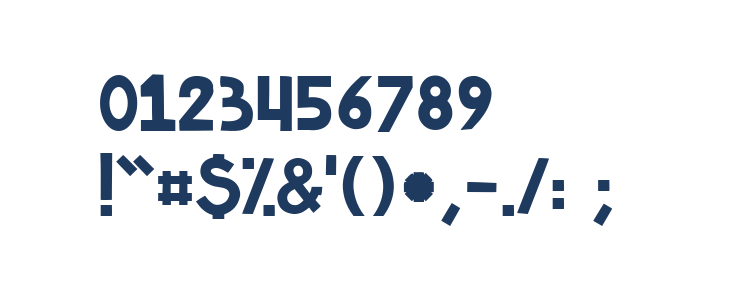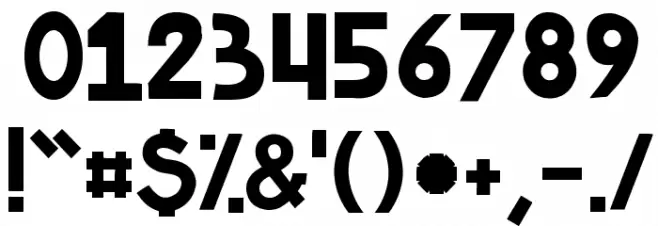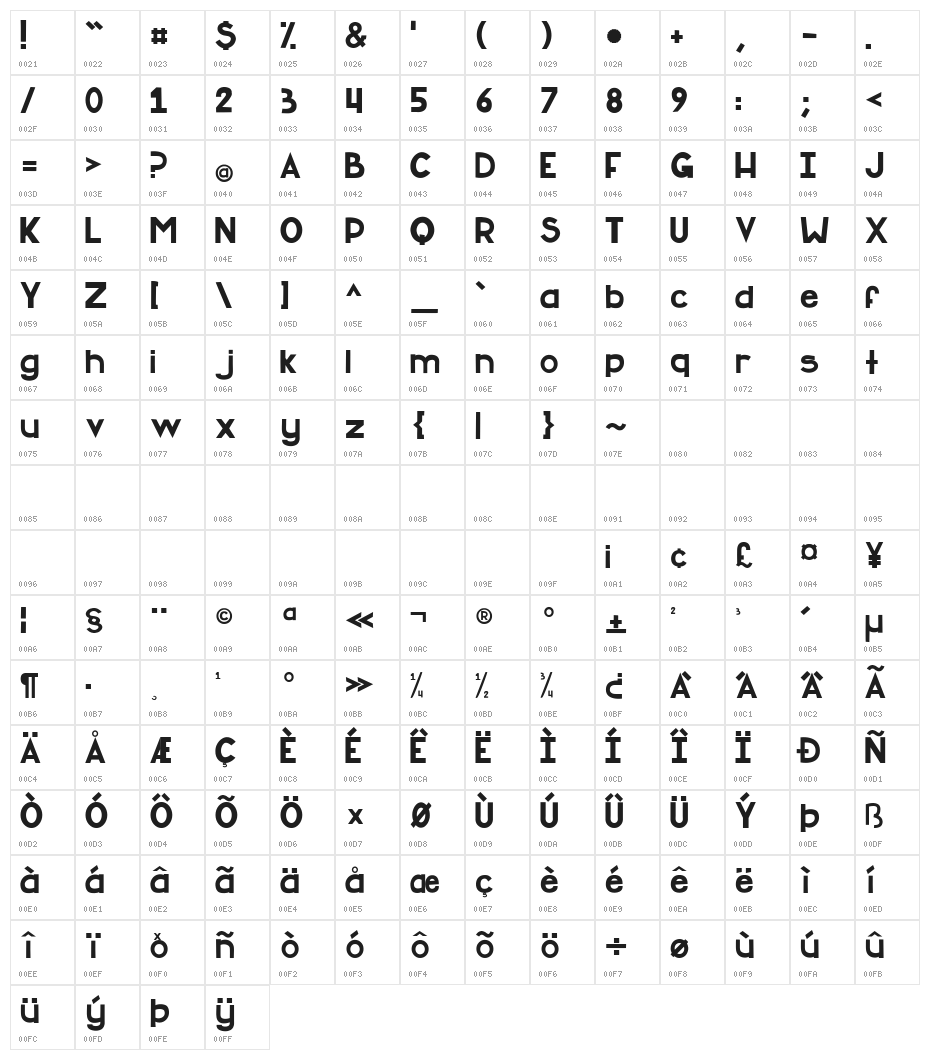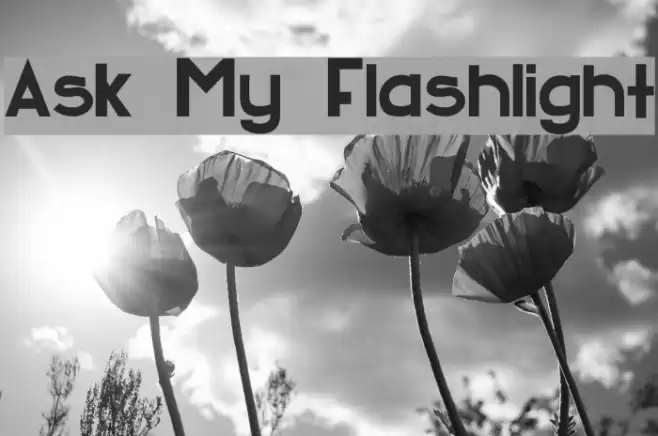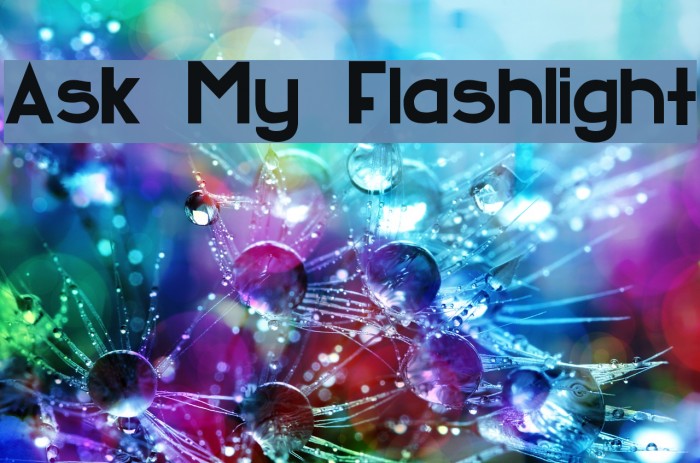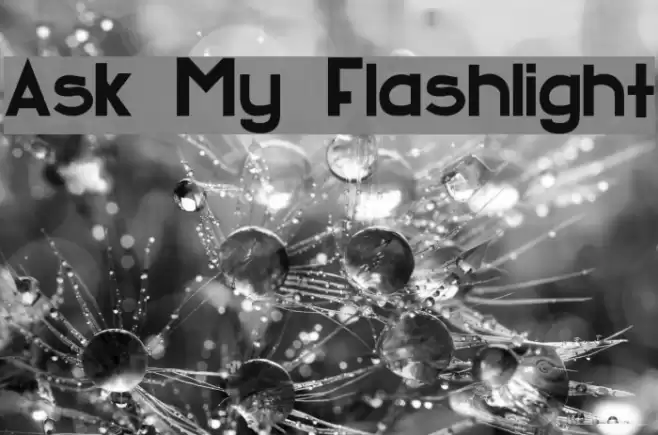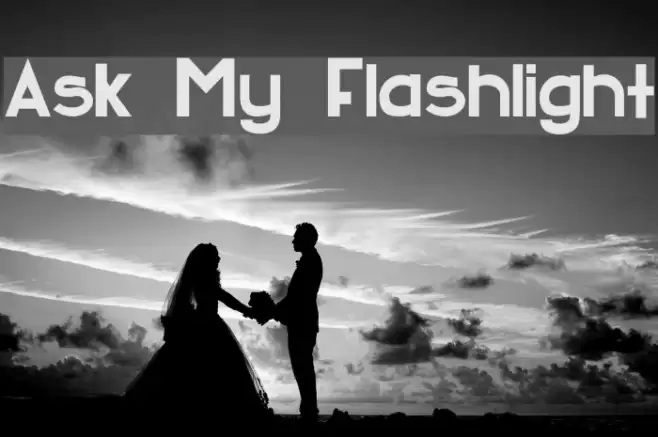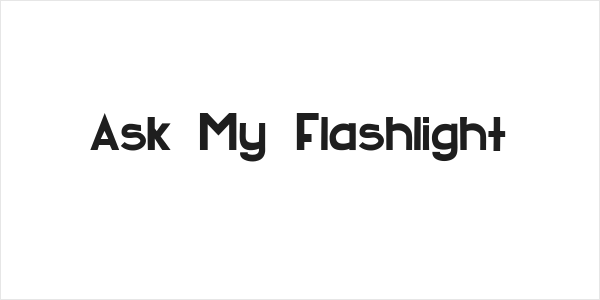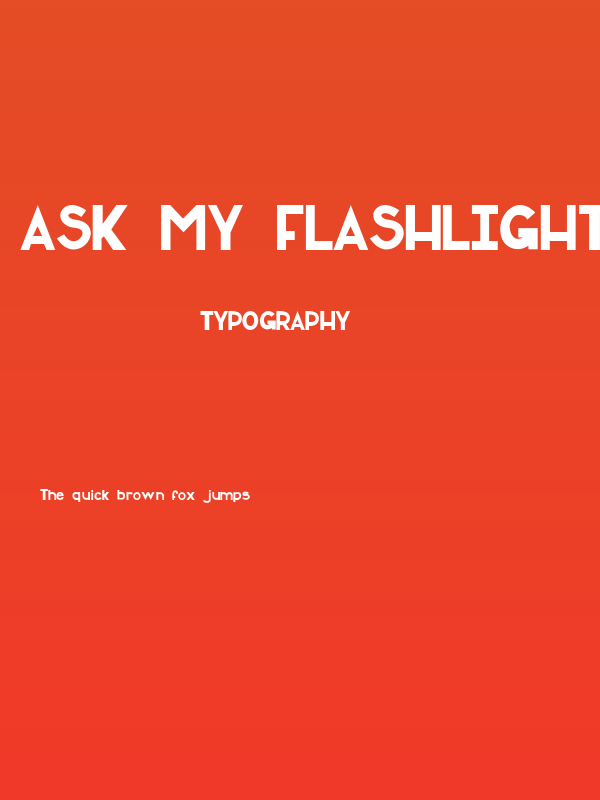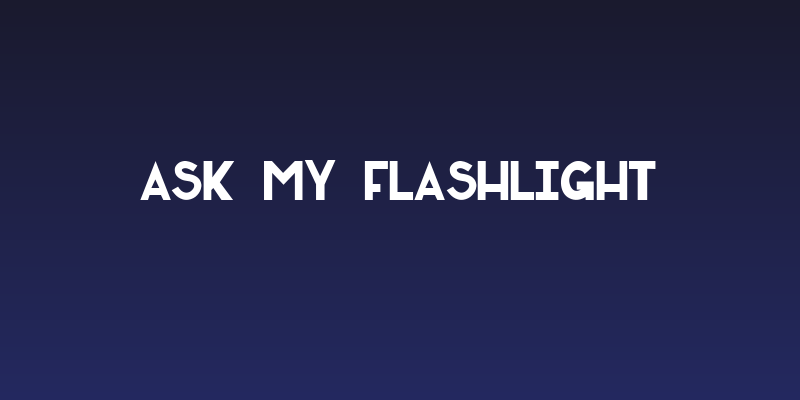
Ask My Flashlight Font
Ask My Flashlight Description
This font features a bold and geometric design with strong, clean lines and a modern aesthetic. The uppercase letters are uniform in height, while the lowercase letters maintain a consistent baseline, creating a cohesive look. The numerals are equally bold, matching the overall style of the alphabet. Special characters are designed to complement the letters and numbers, maintaining the same weight and geometric style. The font's boldness and clarity make it highly legible, even at smaller sizes, while its modern design lends itself well to contemporary projects.
| Proposed Projects | Ideal for branding, advertising, headlines, and digital media projects where a strong, modern presence is desired. |